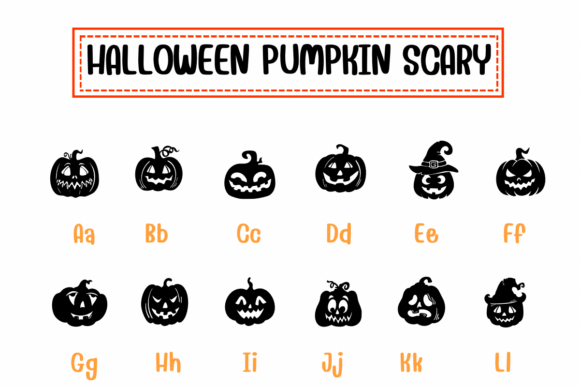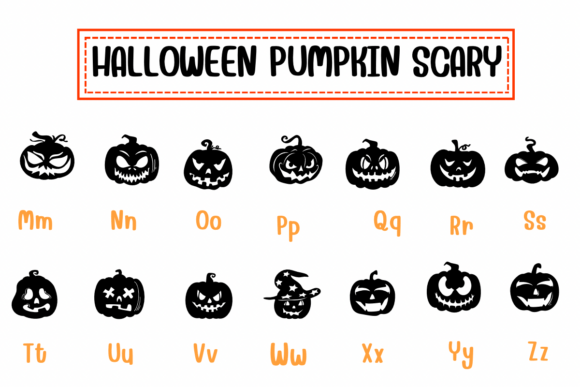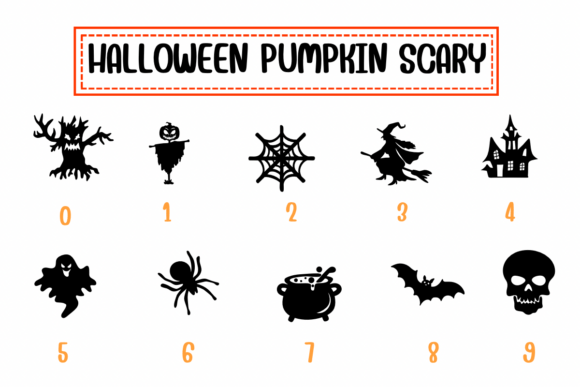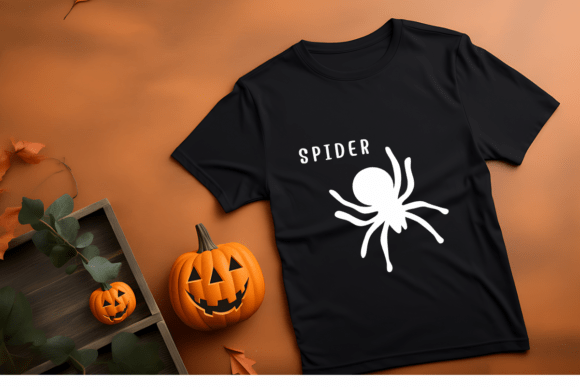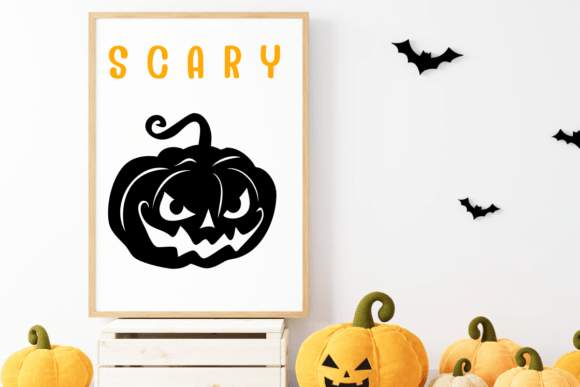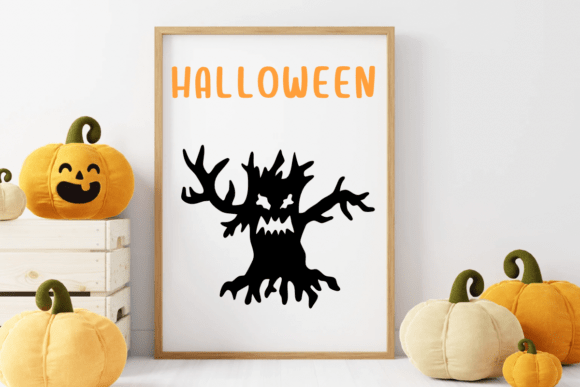
Unleash the Spookiness: Exploring the Halloween Pumpkin Scary Font
As the spookiest time of the year approaches, designers and crafters are on the lookout for the perfect typography to add a dash of eeriness to their creations. Look no further than the Halloween Pumpkin Scary Font, a dingbats font that embodies the spirit of the season. In this article, we’ll dive into the world of this spooky font and explore its endless possibilities for enhancing your creative projects.
What is Halloween Pumpkin Scary Font?
Halloween Pumpkin Scary Font is a unique dingbats font designed with a spooky theme. The font features an assortment of creepy and kooky characters, including jack-o’-lanterns, ghosts, bats, and other Halloween-themed symbols. Each character is carefully crafted to send shivers down your spine, making it the perfect addition to any project that requires a touch of macabre whimsy.
Uses for Halloween Pumpkin Scary Font
This versatile font can be used in a wide range of creative projects, from:
- Wedding Invitations: Add a touch of spookiness to your wedding invitations, perfect for a Halloween-themed wedding or a couple who loves the darker side of romance.
- DIY and Crafts: Use the font to create spooky signs, decorations, and other crafty projects that will make your friends and family scream with delight.
- Decorations: Create eye-catching decorations for your home or office, including banners, garlands, and other Halloween-themed decor.
- Logos: Use the font to create a spooky logo for your business or brand, perfect for companies that specialize in Halloween-themed products or services.
- Social Media Graphics: Add a touch of spookiness to your social media graphics, including Facebook posts, Instagram stories, and Twitter headers.
Benefits of Using Halloween Pumpkin Scary Font
So why choose Halloween Pumpkin Scary Font for your creative projects? Here are just a few benefits:
- Unique and Eye-Catching: The font’s spooky theme and unique characters are sure to grab attention and leave a lasting impression.
- Versatile: The font can be used in a wide range of creative projects, from digital designs to print materials.
Tips for Using Halloween Pumpkin Scary Font
To get the most out of Halloween Pumpkin Scary Font, here are a few tips:
- Experiment with Different Sizes: Play around with different font sizes to create a unique and eye-catching design.
- Combine with Other Fonts: Pair the font with other complementary fonts to create a bold and striking design.
- Add Texture and Patterns: Add texture and patterns to your design to give it an extra layer of depth and interest.
Halloween Pumpkin Scary Font is a spooky and versatile dingbats font that’s perfect for designers and crafters looking to add a touch of eeriness to their creative projects. With its unique characters, ease of use, and endless possibilities, this font is sure to become a go-to for anyone looking to create spooky and eye-catching designs. So why wait? Download Halloween Pumpkin Scary Font today and unleash the spookiness in your designs!